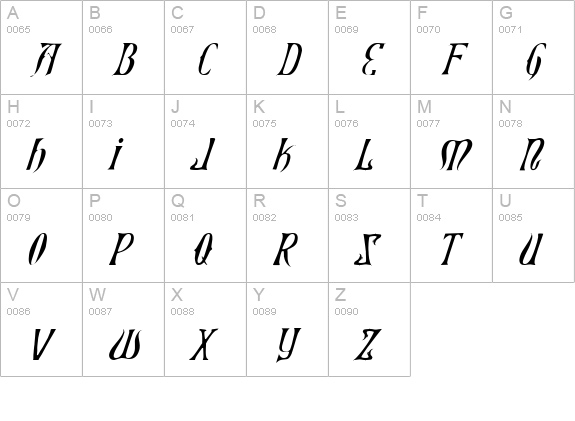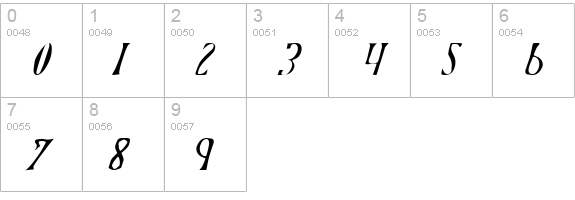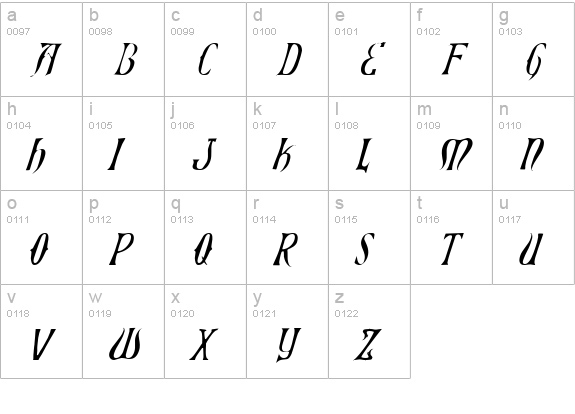
Xiphos Light Italic is a refined, elegant, italic variant in the Xiphos typeface family \xE2\x80\x94 well suited to elegant body text, refined sub-headings, and luxury branding.
Xiphos Light Italic font exudes elegance and sophistication with its sleek and refined design. The delicate curves and graceful strokes of this typeface lend a touch of modernity to any project, making it perfect for adding a touch of sophistication to your designs. The Light Italic style adds a subtle flair to the font, enhancing its versatility and making it suitable for a wide range of applications. Best of all, this stunning typeface is available for free download at FontsMarket.com. Whether you're working on a branding project, designing a website, or creating marketing materials, Xiphos Light Italic font is sure to add a touch of class and style to your work. Download it today and elevate your designs with this beautiful and freely available font.